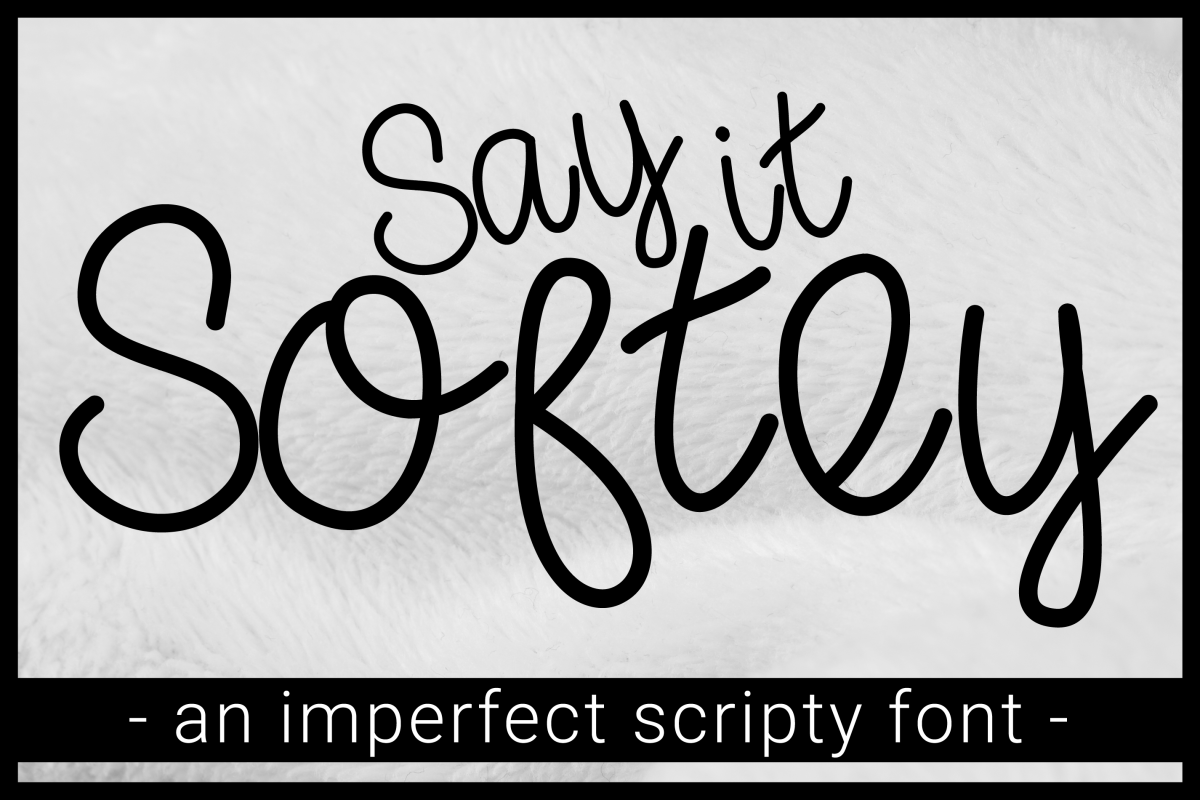
Say It Softly Imperfect Scripty Font
Say it Softly is an imperfect script font. Use it to connect the letters yourself or have them separate. Incorporates a handwriting style that is not quite print or cursive!